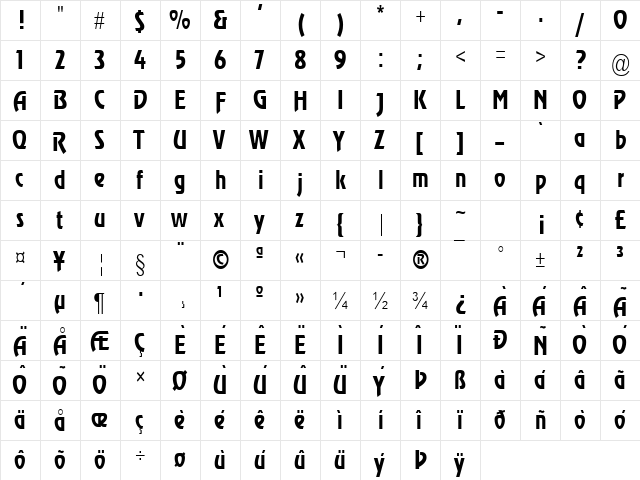
Review Condensed Narrow Normal
Design Context for Review Condensed Narrow Typeface
Review Condensed Narrow takes a measured approach to typography — its balanced proportions and neutral character make it a reliable workhorse for both digital and print work. The condensed width makes it efficient for tight spaces without sacrificing legibility.